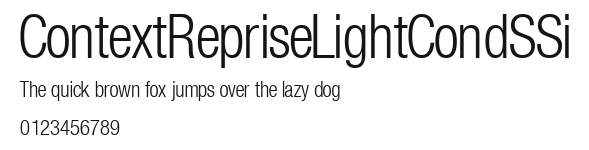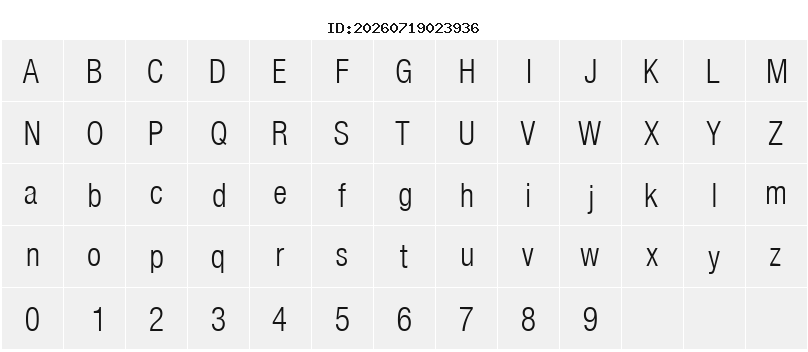
• Font Name: ContextRepriseLightCondSSi
• Full Font Name: ContextRepriseLightCondSSi Bold
About ContextRepriseLightCondSSi.ttf
ContextRepriseLightCondSSi.ttf is a modern, elegant sans-serif font designed for ultimate readability and visual harmony. Perfect for branding, headlines, web design, and print materials.